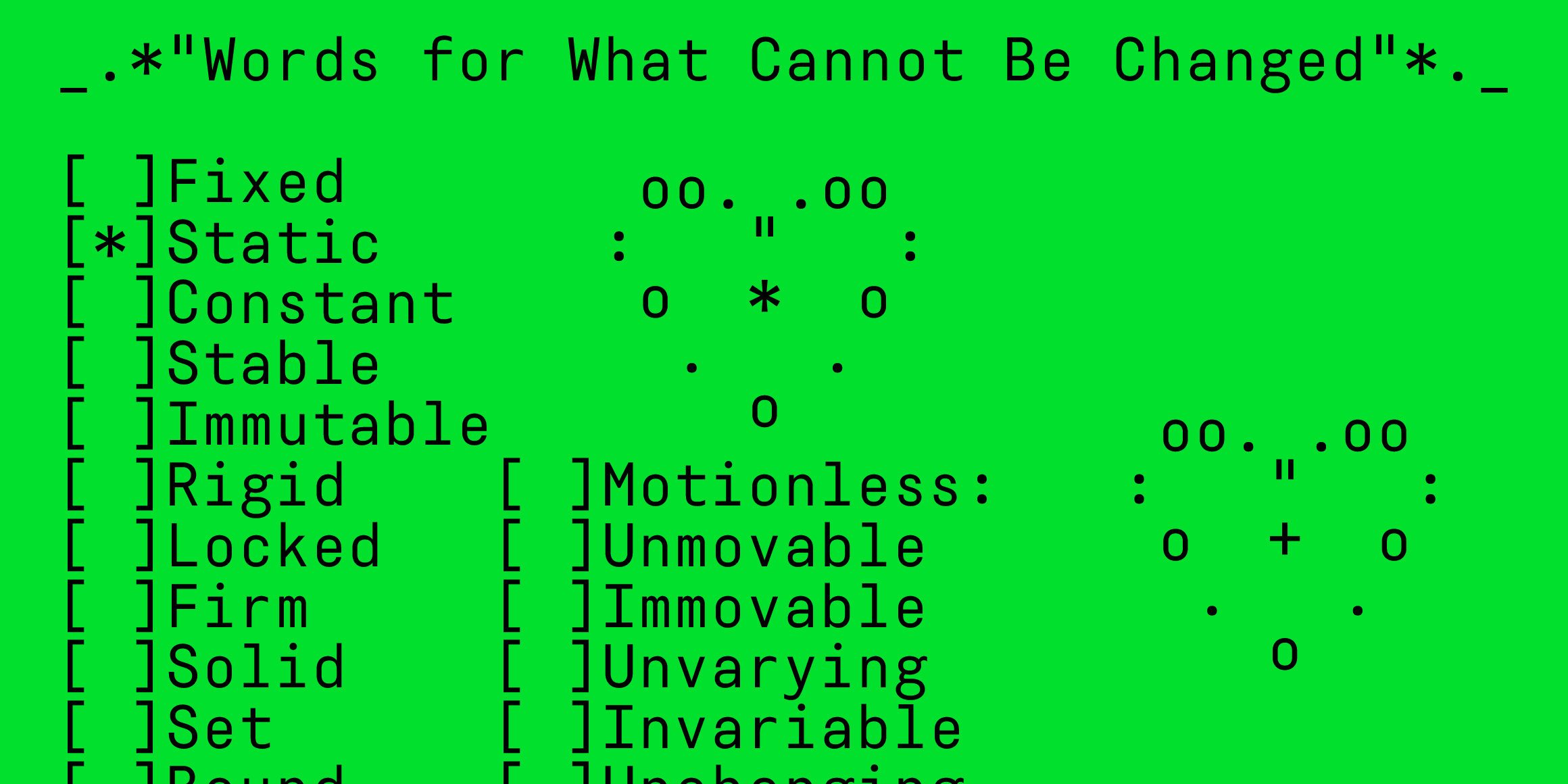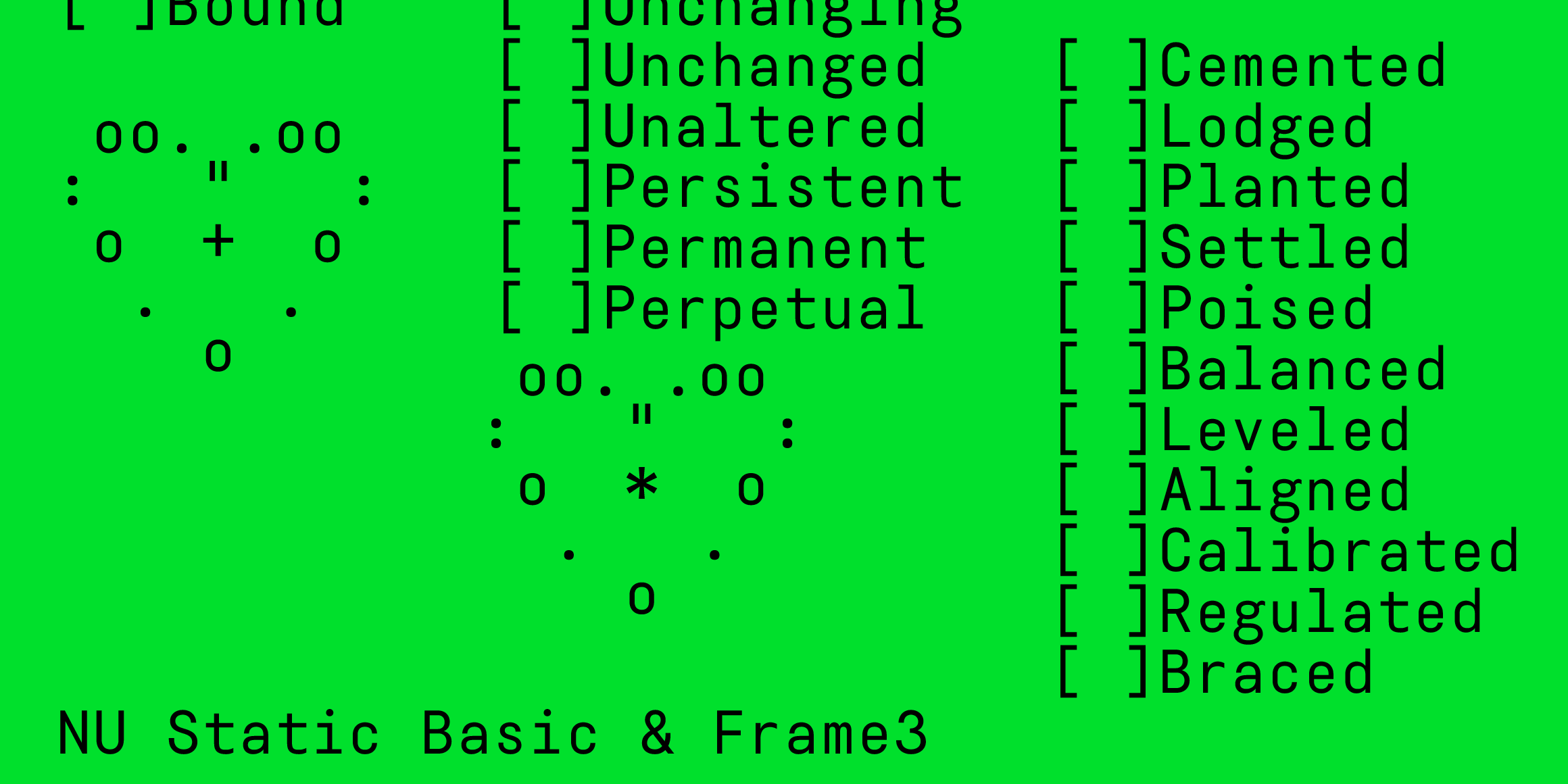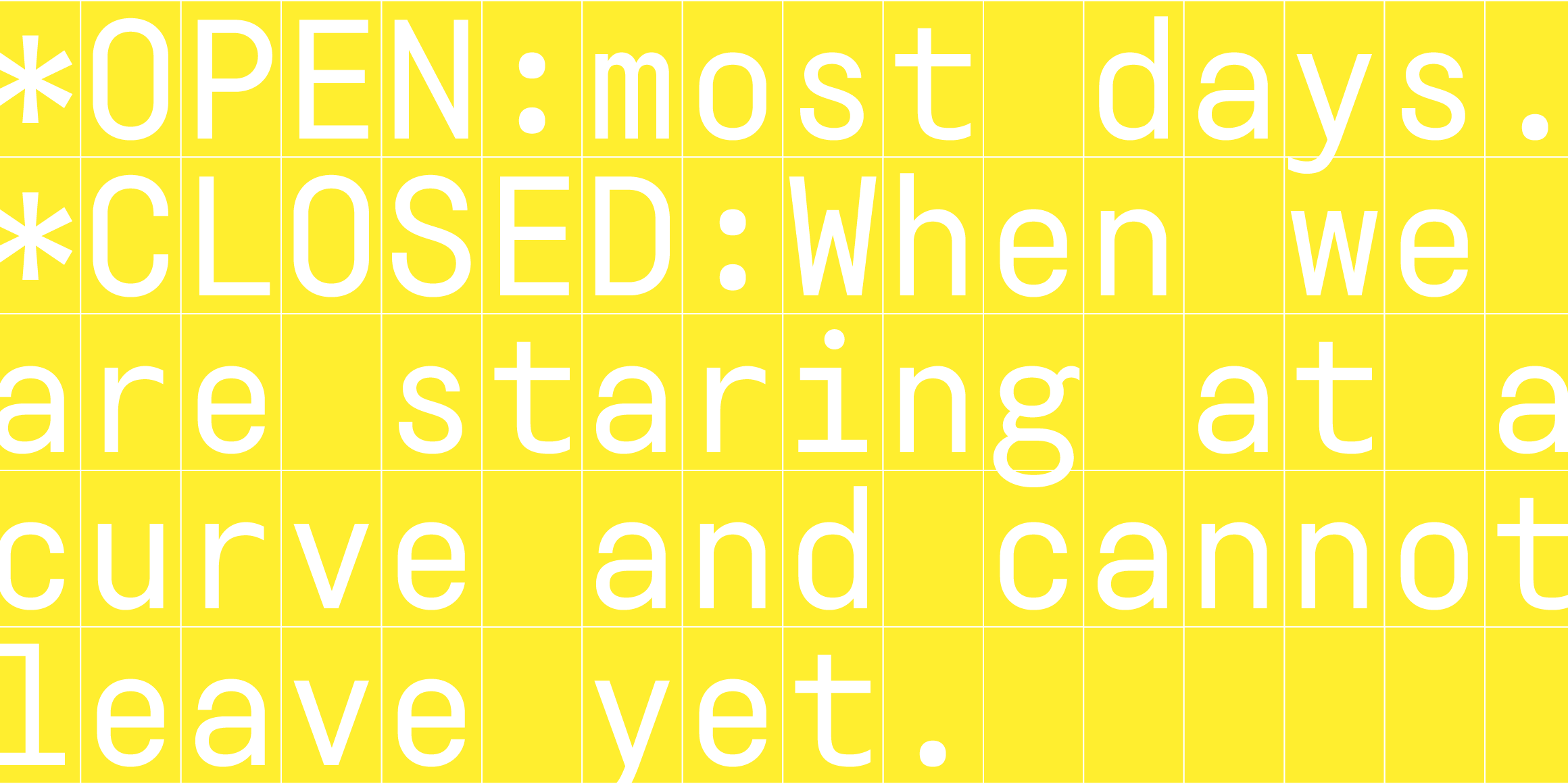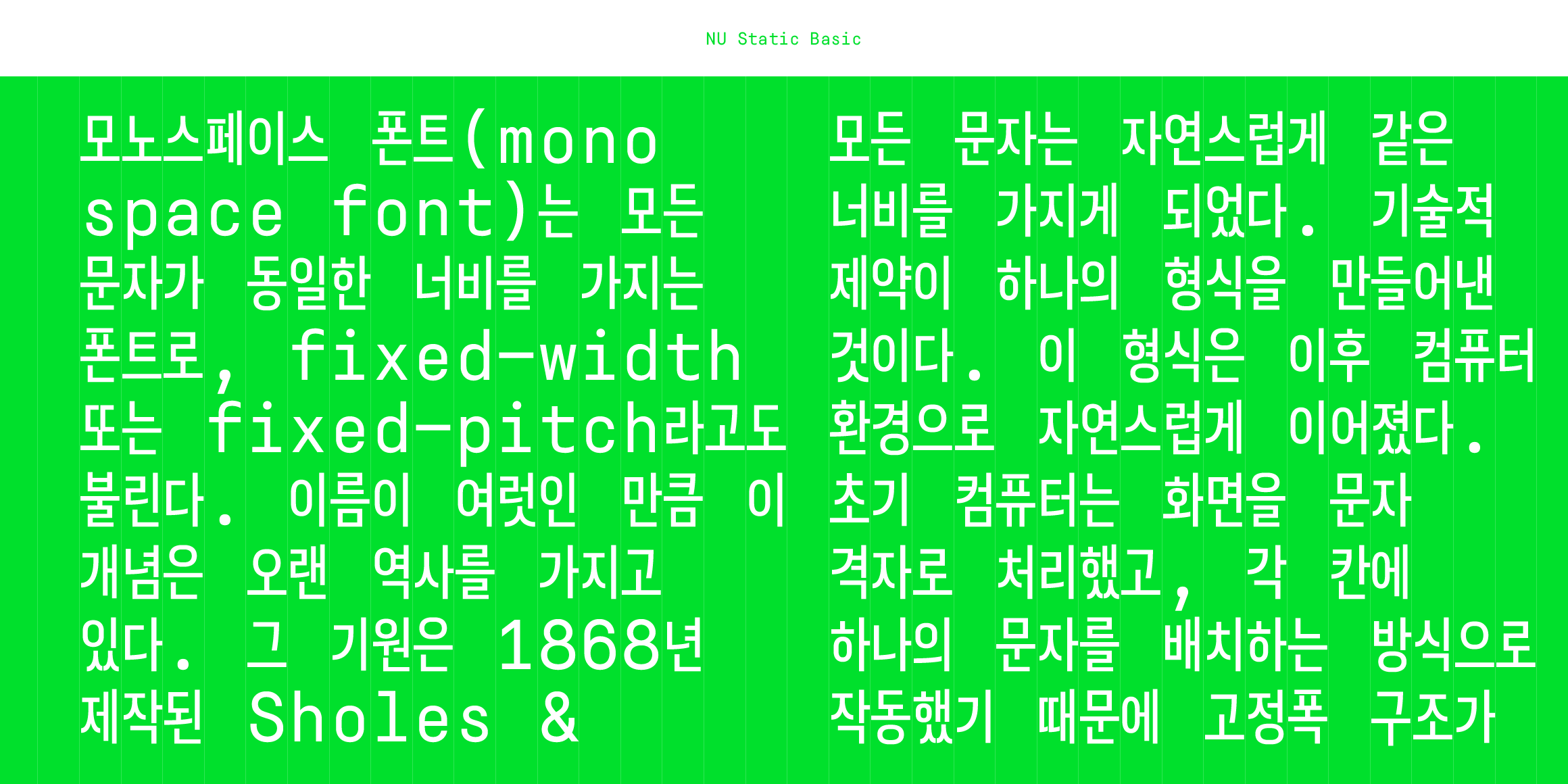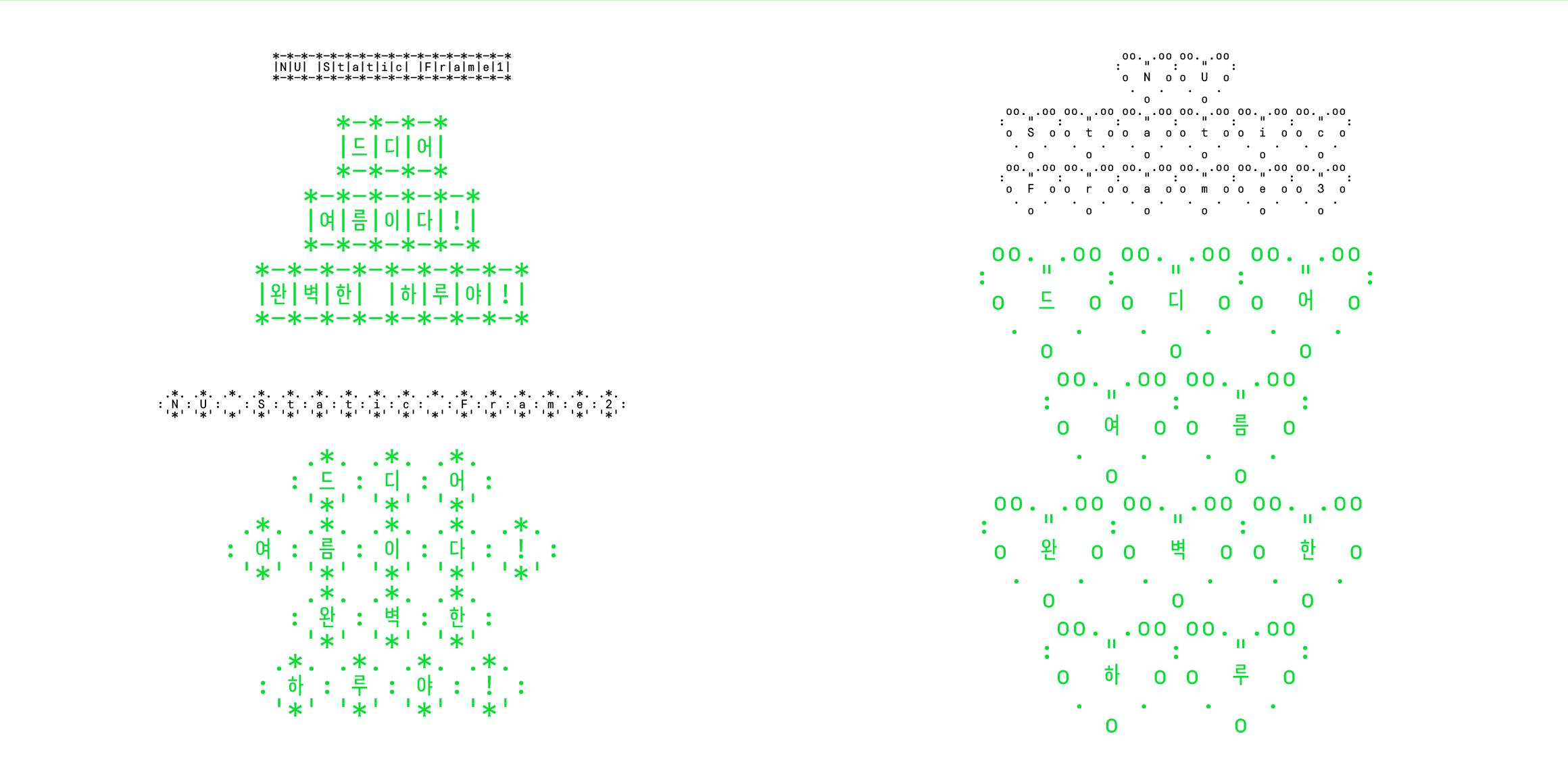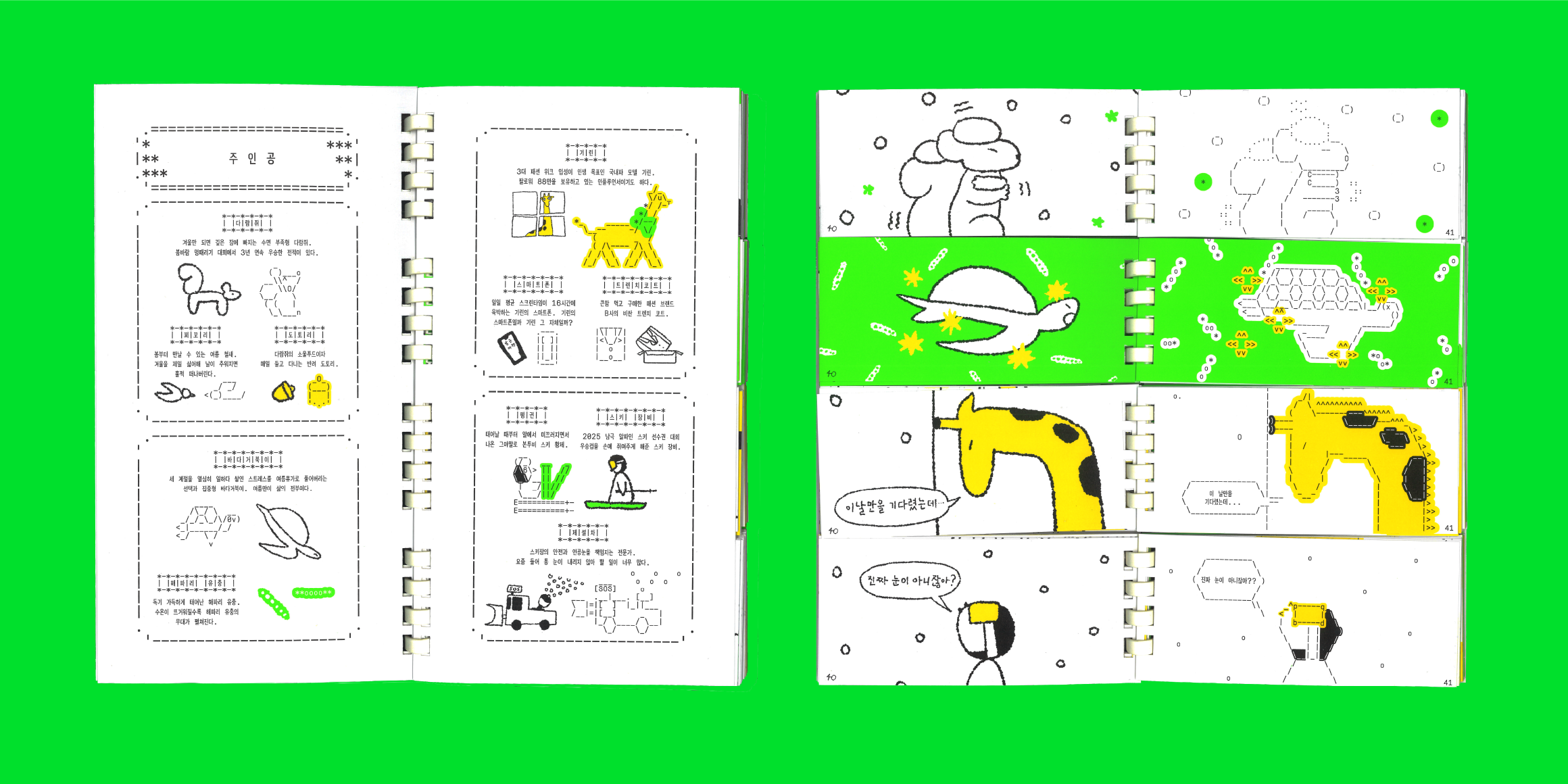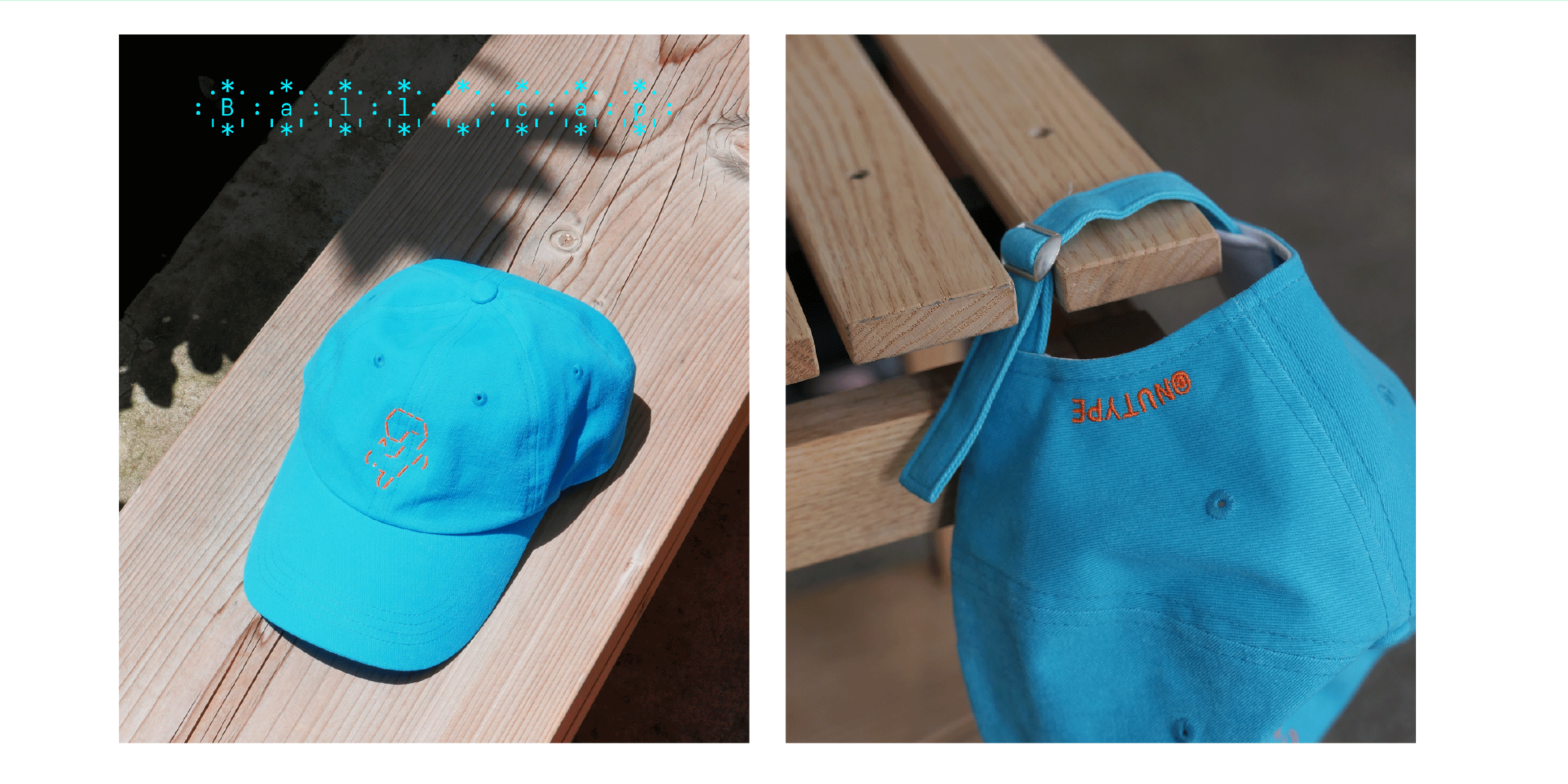
NU Static
• Basic
• Frame1
• Frame2
• Frame3
«NU Static» is a text font designed for use in ASCII Art. ASCII Art is a method of expressing images by arranging characters and symbols in a grid format, which requires uniform width across all characters for accurate reproduction. This structural requirement gave rise to the monospaced — or fixed-width — font, and «NU Static» was designed with this condition as its foundation.
Among monospaced fonts, «NU Static» is a full monospaced font in which Hangul and Latin characters share exactly the same width. Hangul normally has a fixed-width structure, yet most Hangul fonts — even when Latin characters are designed as monospaced — do not align them to the same width as Hangul. «NU Static» unifies Hangul and Latin to an identical width without exception, ensuring that every character, regardless of script, sits on a perfectly uniform grid. The typographic density between the two writing systems has also been carefully balanced, so that any combination of characters reads at the same visual weight.
Alongside the Basic font, three Frame fonts are also presented. These fonts incorporate the symbol combinations characteristic of ASCII Art as decorative elements, allowing users to complete designs featuring ASCII Art through typing alone — no plugins or additional settings required.